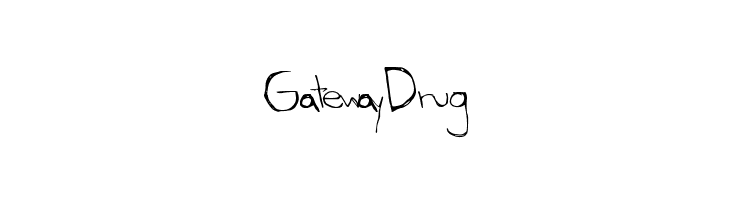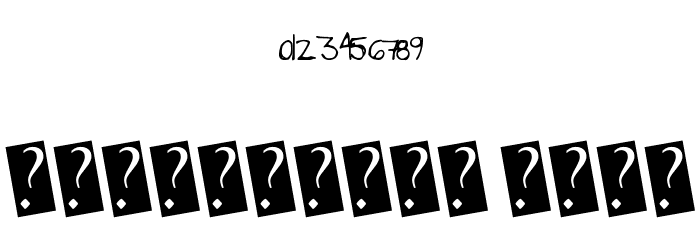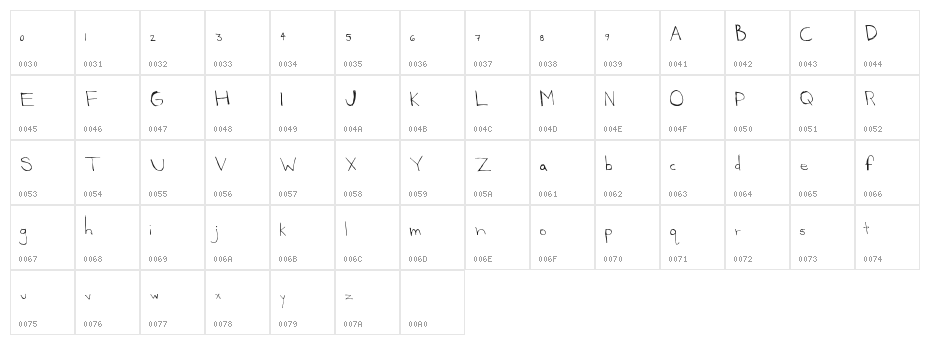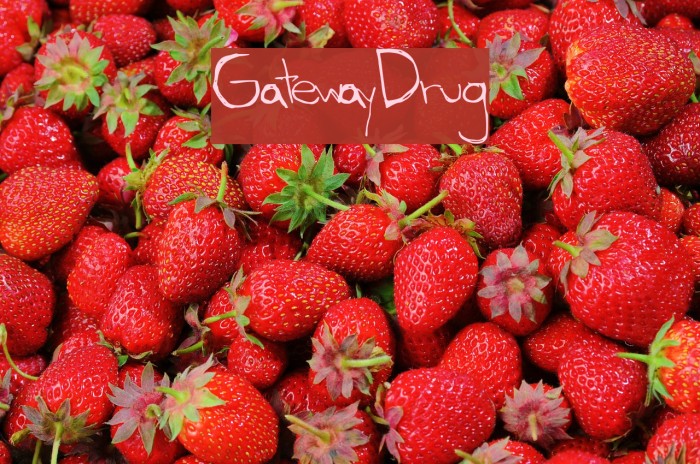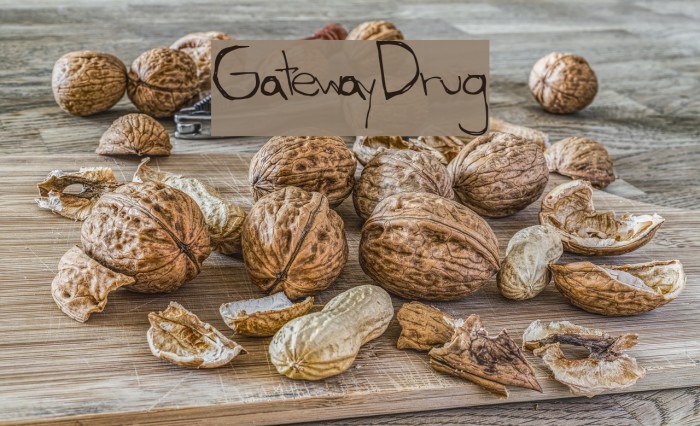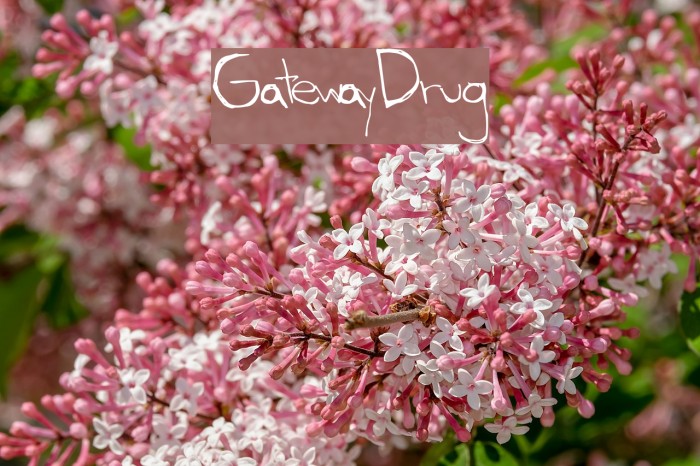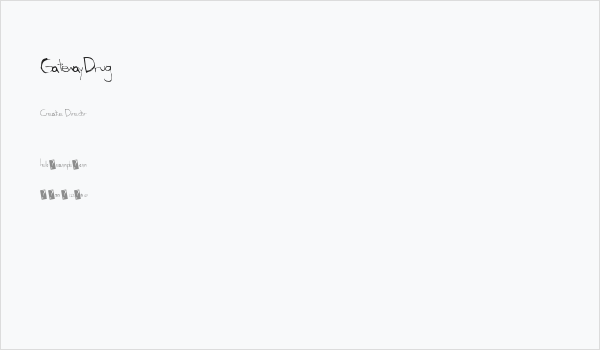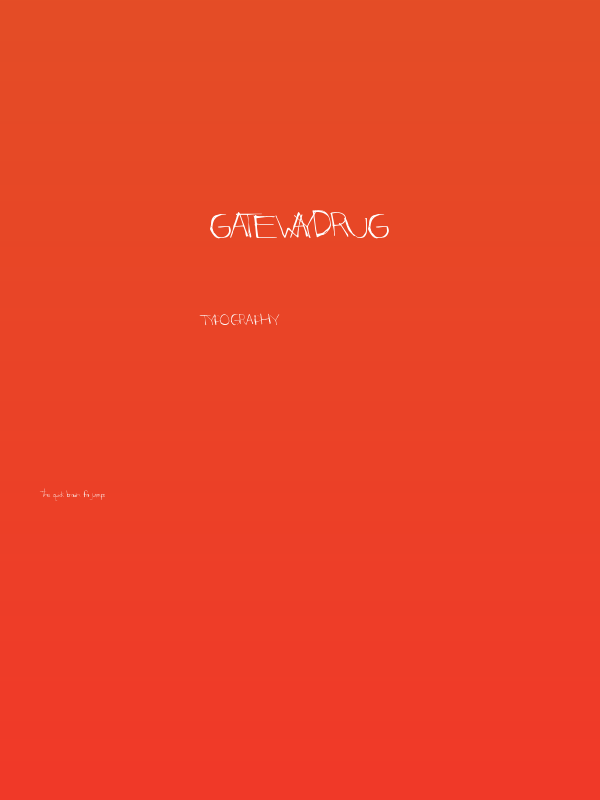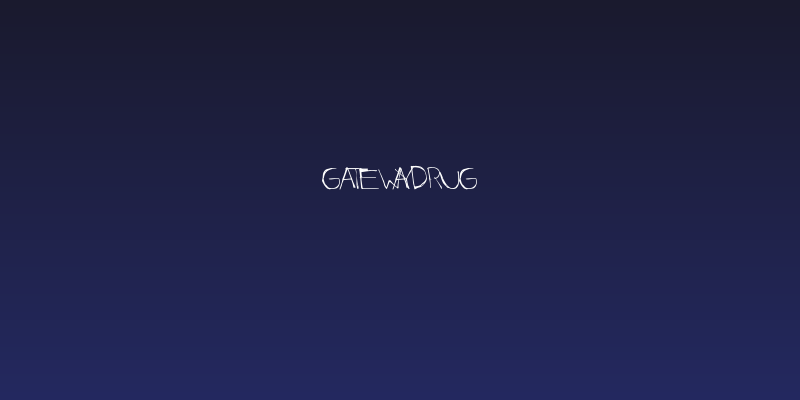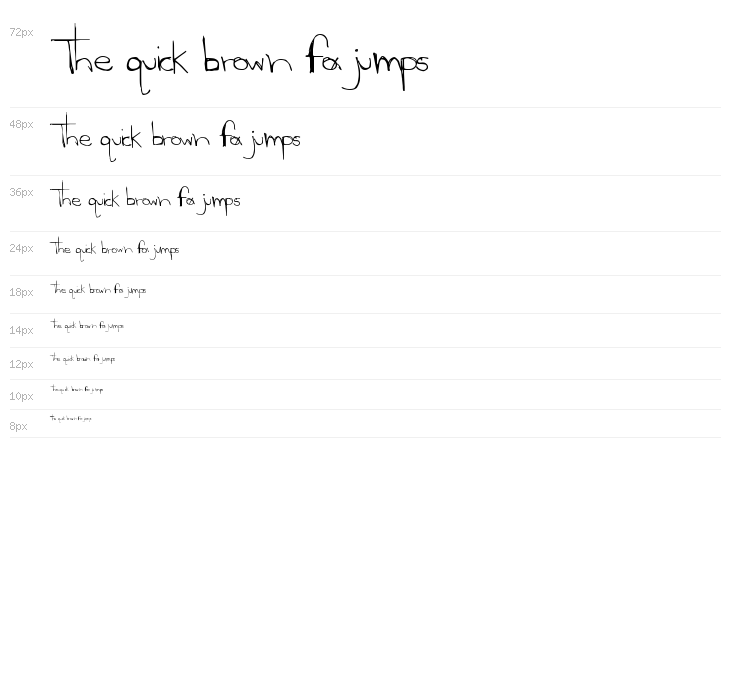
GatewayDrug Font
GatewayDrug Description
This font features a unique, hand-drawn style with an irregular, playful appearance. The characters have a slightly rough, sketch-like quality, giving them a casual and artistic feel. The uppercase letters are tall and narrow, while the lowercase letters maintain a consistent height, adding to the whimsical nature of the design. The numbers and special characters follow the same aesthetic, ensuring a cohesive look. This font's distinctive style makes it suitable for creative projects that require a touch of personality and flair.
| Proposed Projects | Ideal for creative projects such as children's book covers, artistic posters, and unique branding materials. |